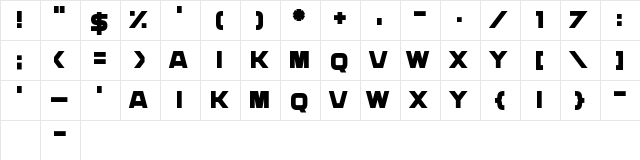
Daily Mix 3 Regular
| Designer | NAL |
Design Context for Daily Mix 3 Typeface
Daily Mix 3 takes a measured approach to typography — its balanced proportions and neutral character make it a reliable workhorse for both digital and print work.